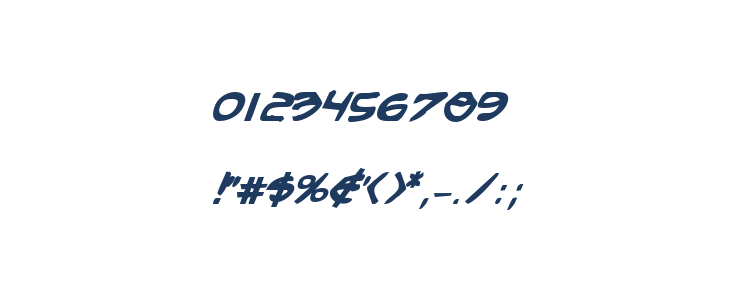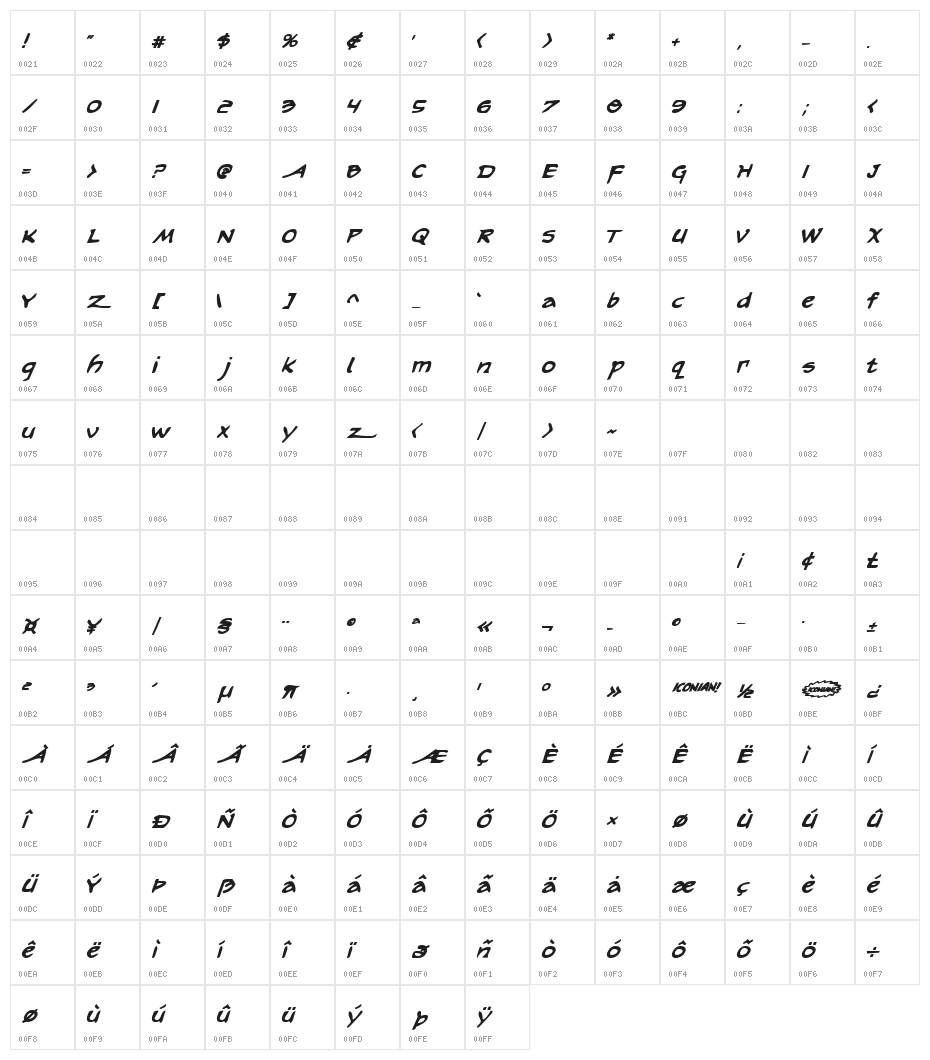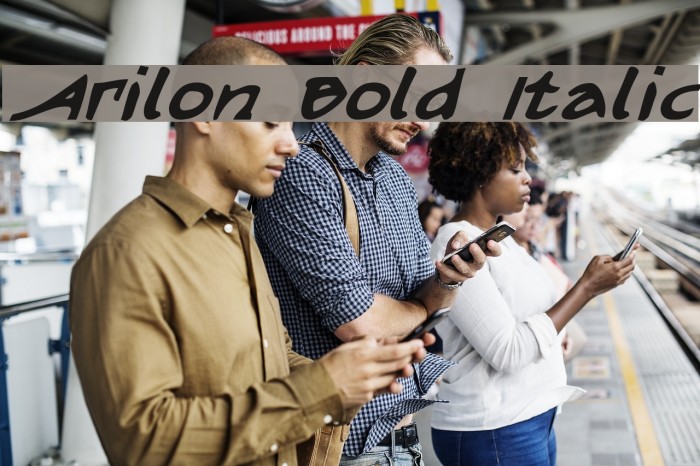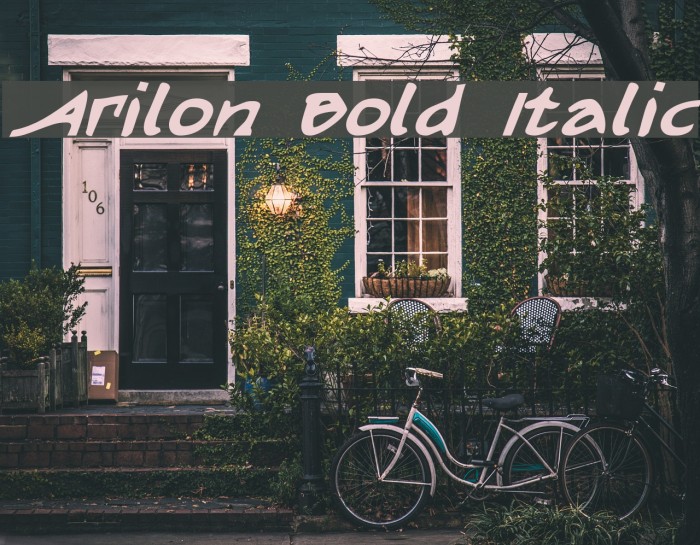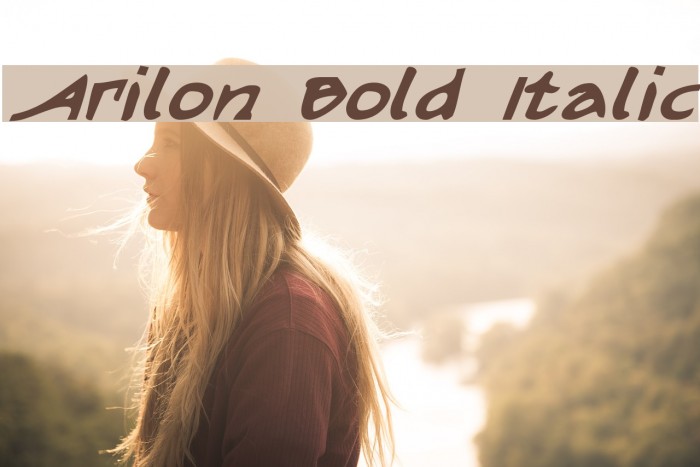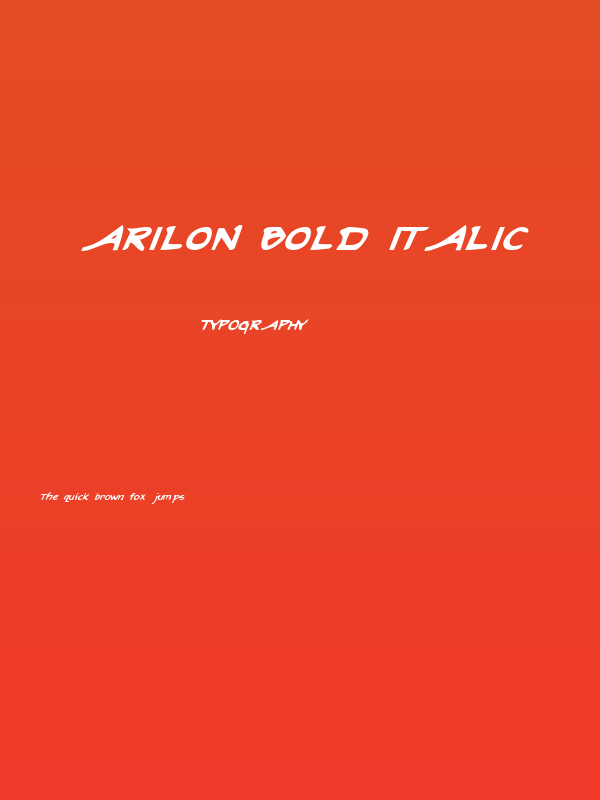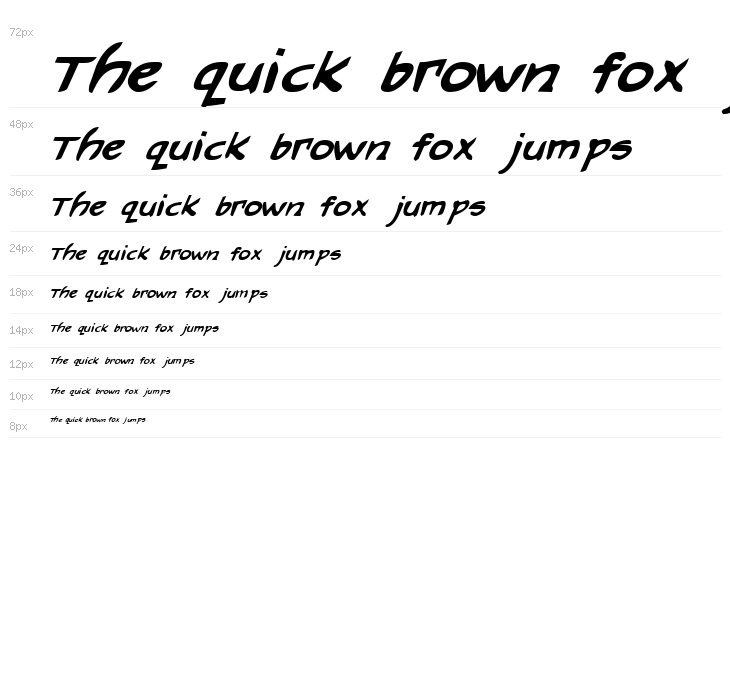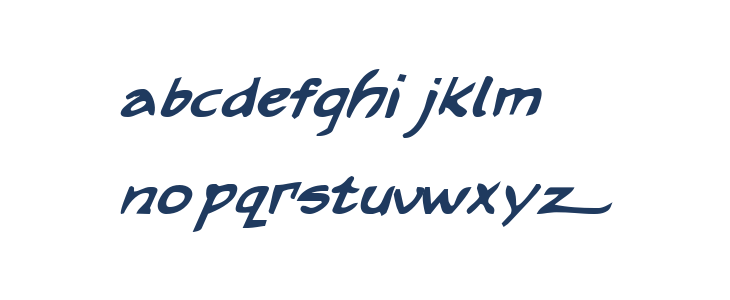
Arilon Bold Italic Font
Arilon Bold Italic Description
This font features a dynamic and energetic style with a bold and italicized appearance. The characters exhibit a fluid, handwritten quality, with each letter slightly slanted to the right, enhancing its italic nature. The strokes are thick and consistent, providing a strong visual impact. The uppercase letters are particularly striking, with unique flourishes and curves that add a sense of movement. The lowercase letters maintain a cohesive look, complementing the uppercase with their own distinctive flair. Numbers and special characters are designed to match the overall aesthetic, ensuring a harmonious look across all text elements.